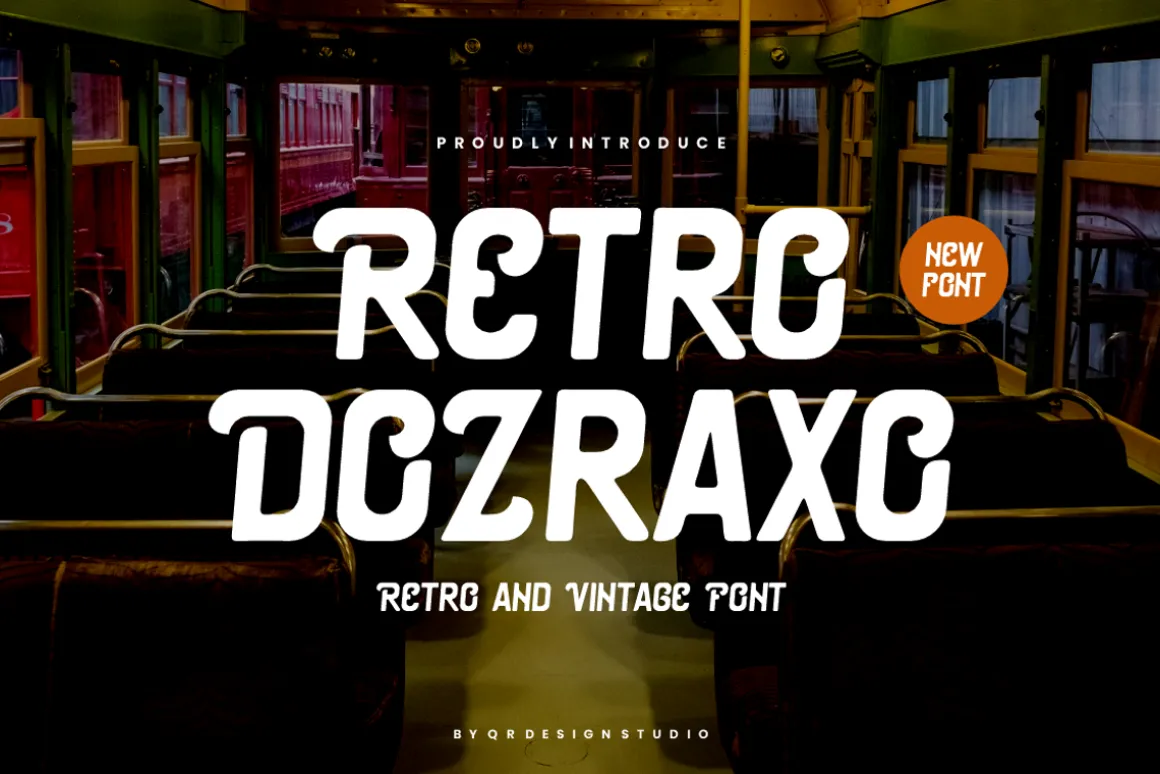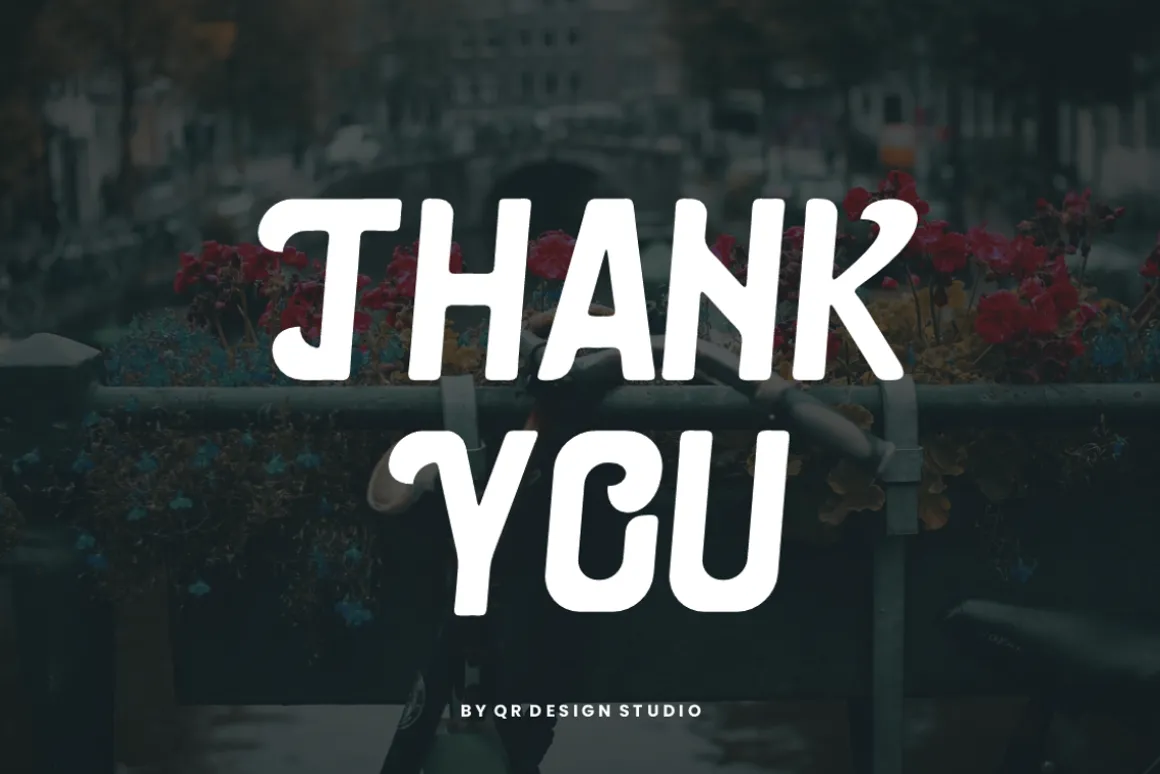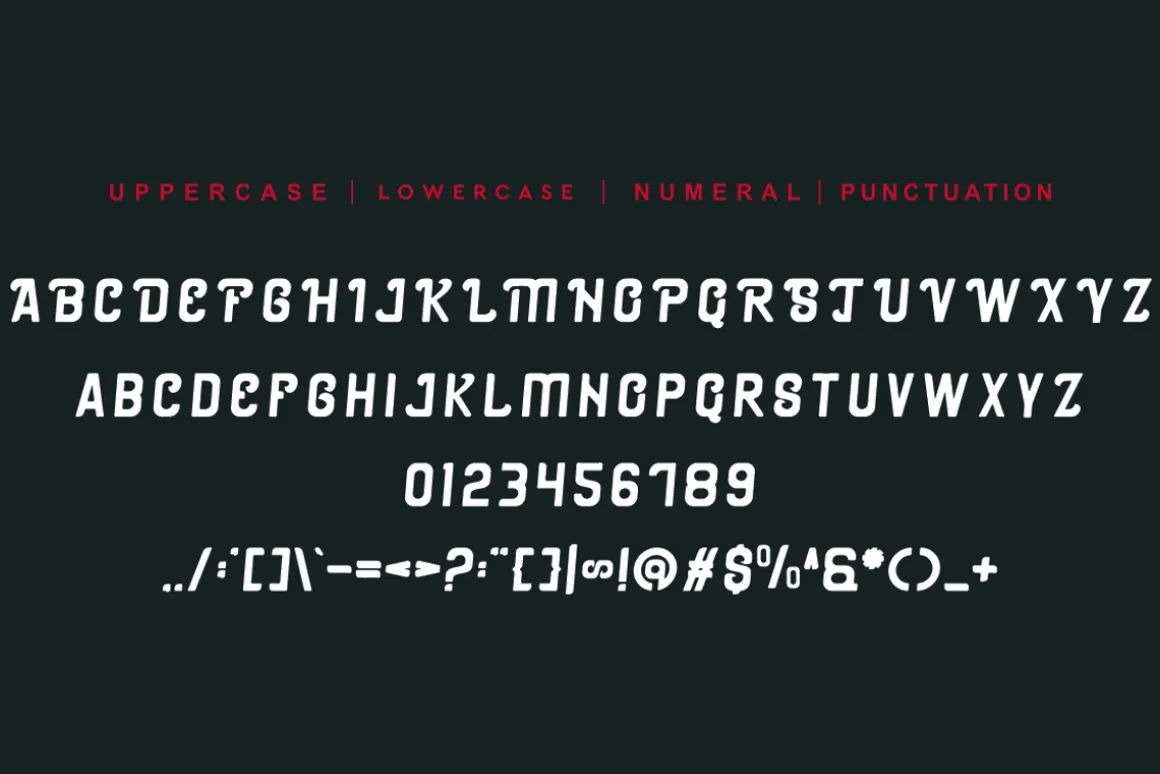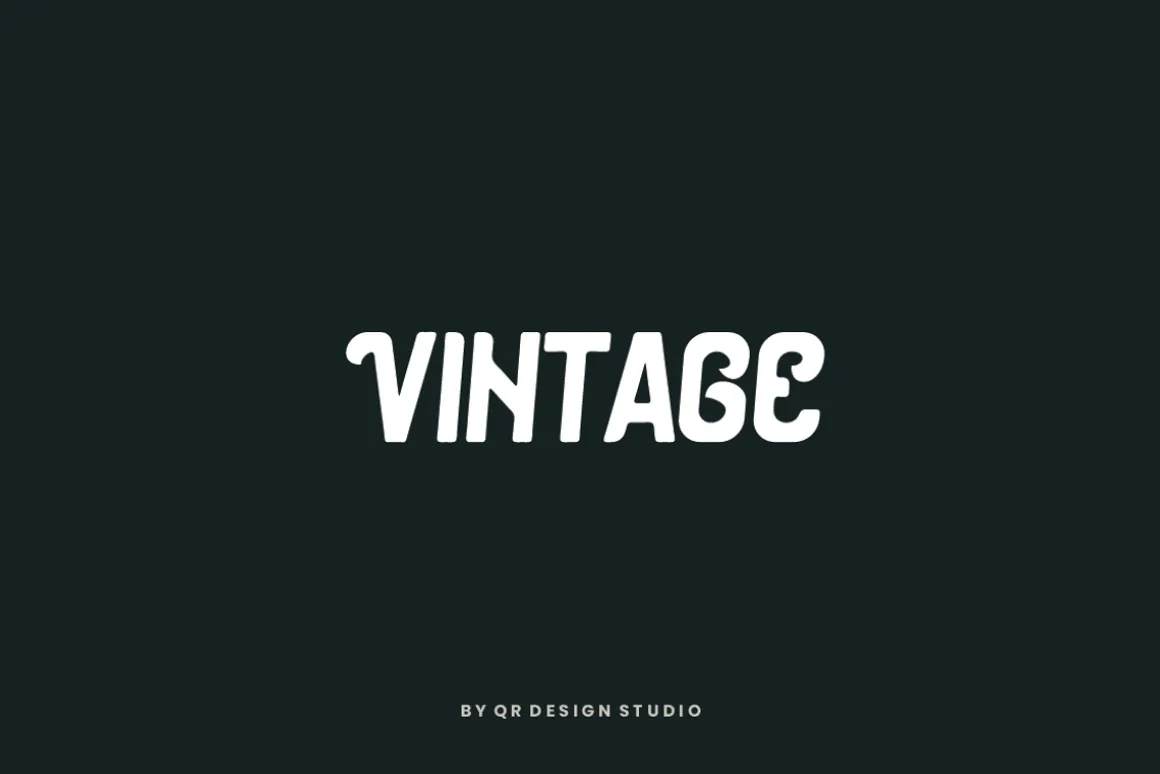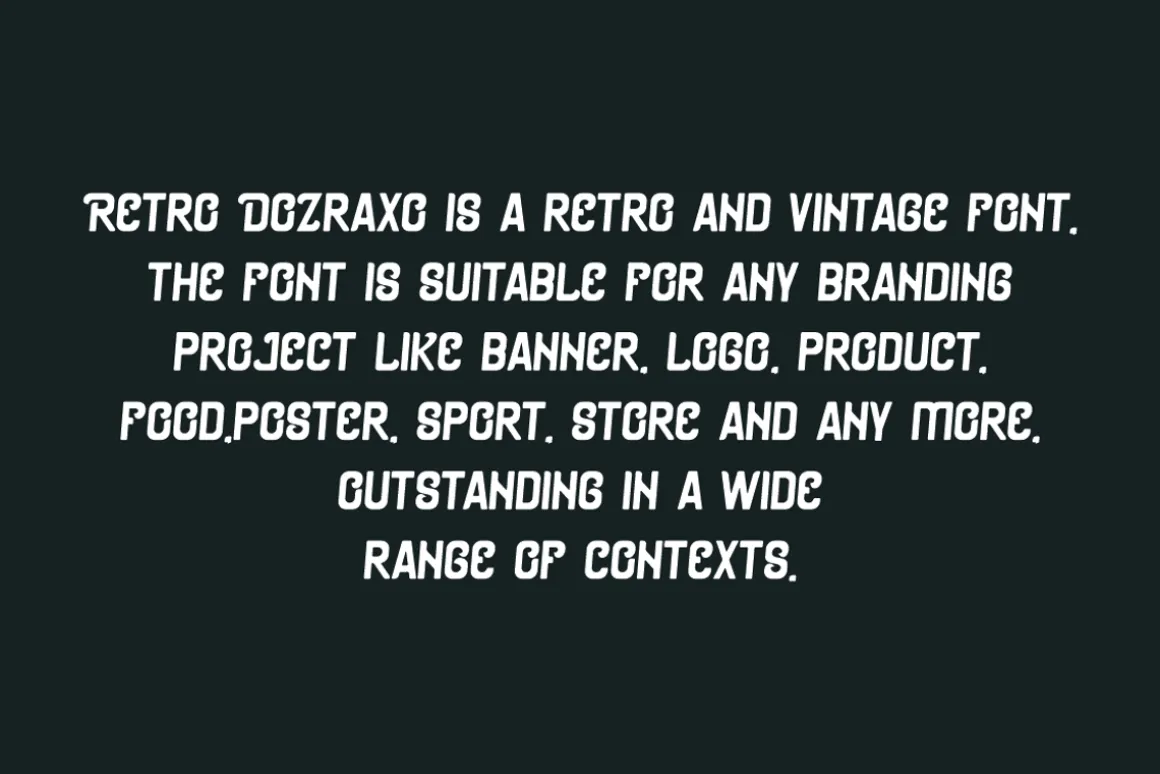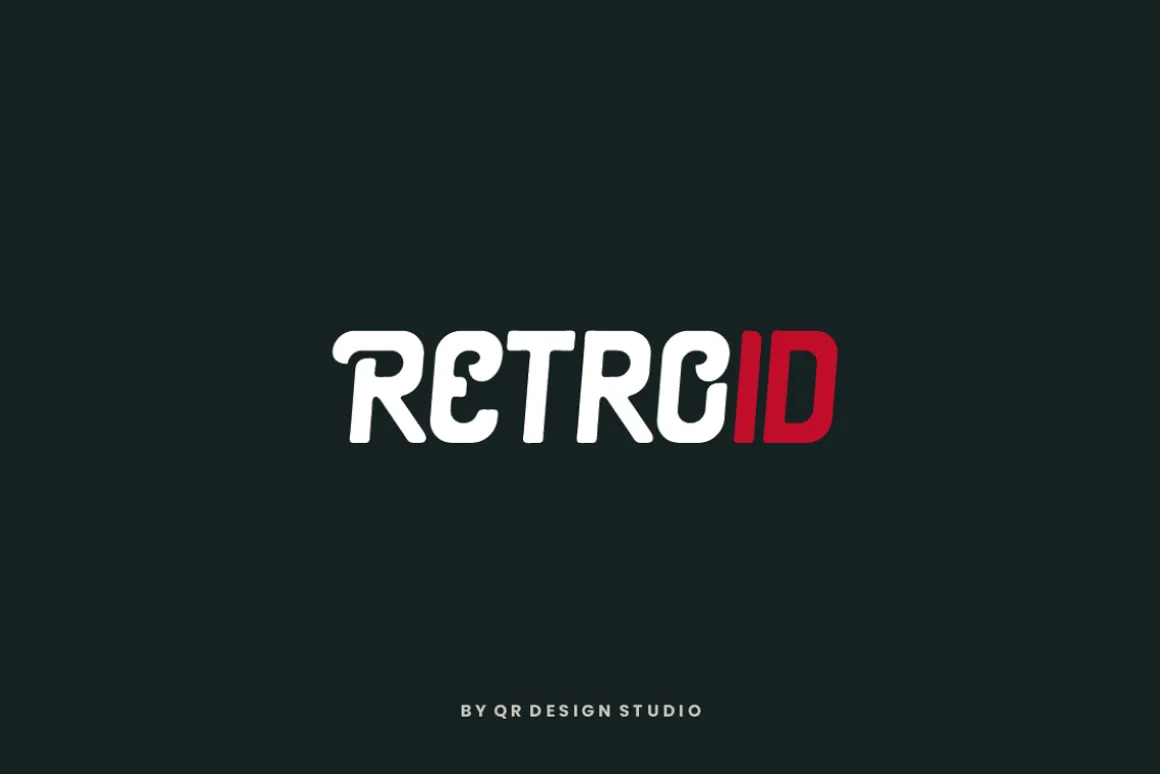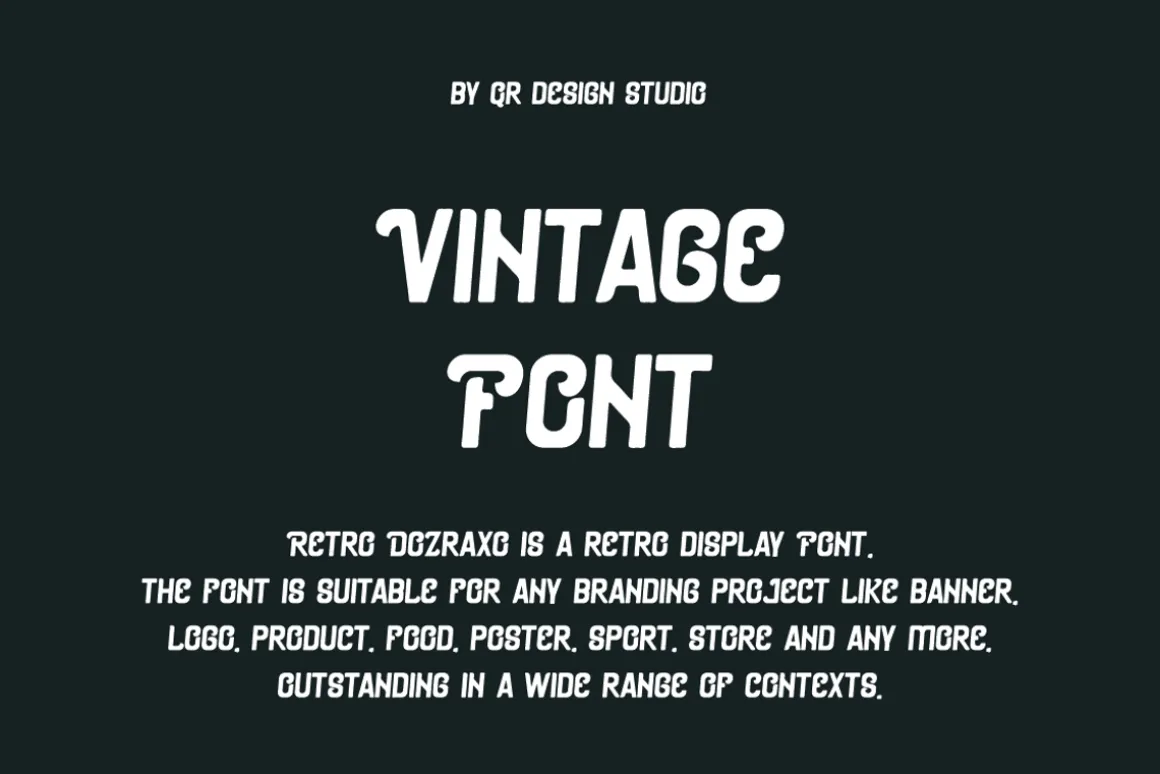
Retro Dozraxo Font is a artdeco and authentic display font.The font is suitable for any branding project like poster, logo, sport, and many more.Outstanding in a wide range of contexts.